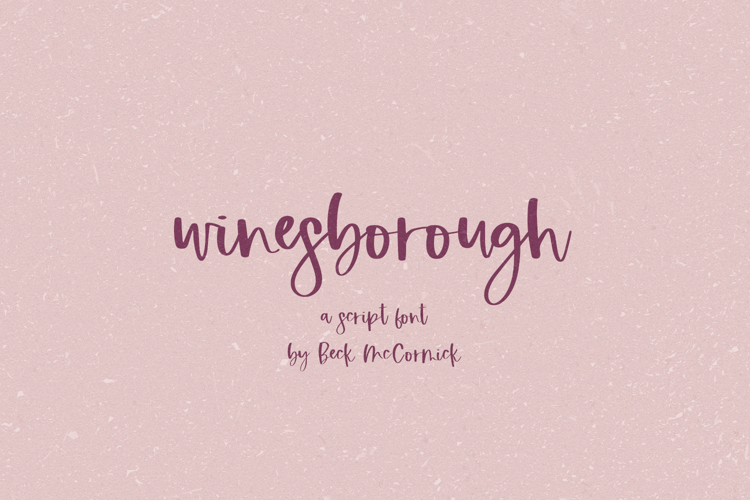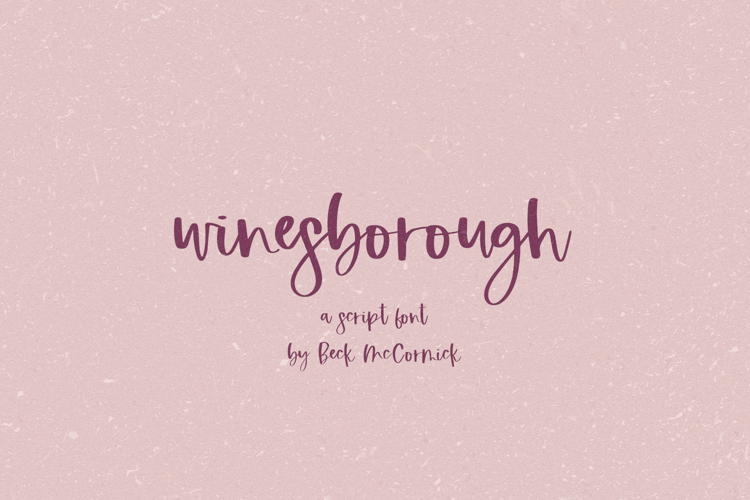
Winesborough Script
Introducing Winesborough Script, a modern calligraphy font. Winesborough is best for crafty projects with your Cricut or Silhouette machine, creating SVG designs for sale, farmhouse decor & crafts, logos & branding, print design, marketing materials, or social media graphics.